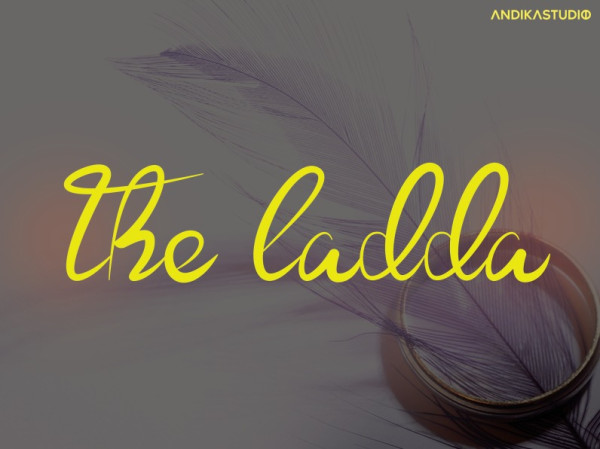
The Ladda Font
The Ladda Font ,a luxury script that has its own unique style & modern look. This typeface is perfect for an elegant & luxury logo, book or movie title design, fashion brand, magazine, clothes, lettering, quotes, and so much more.